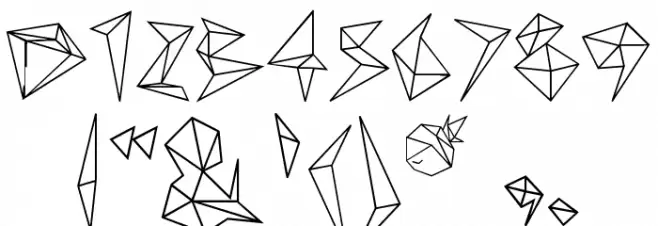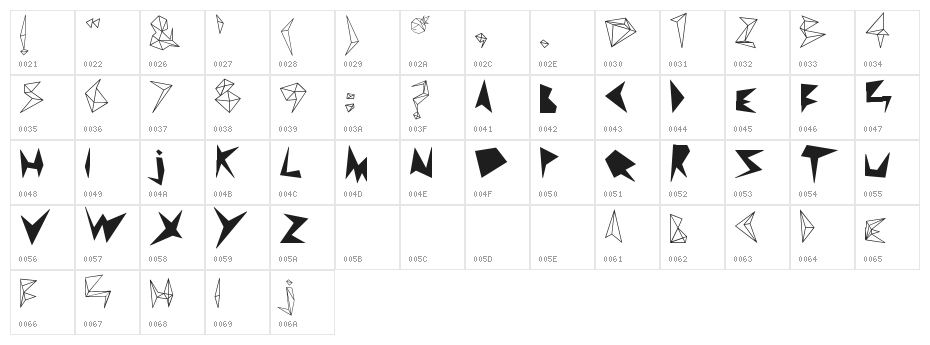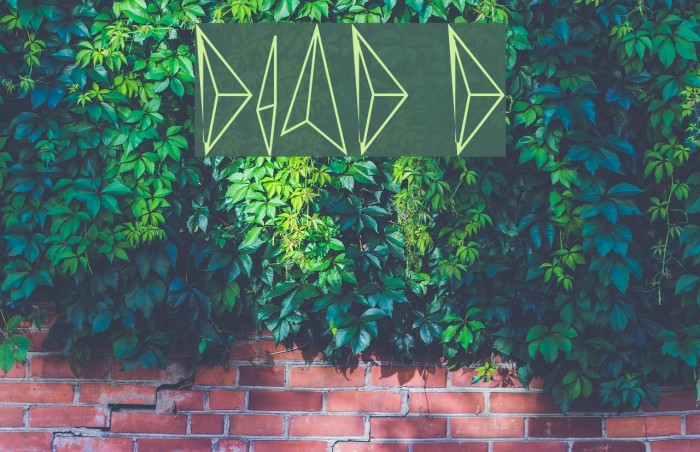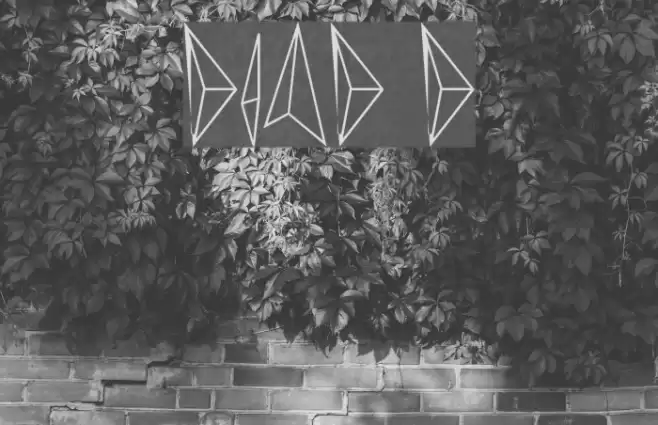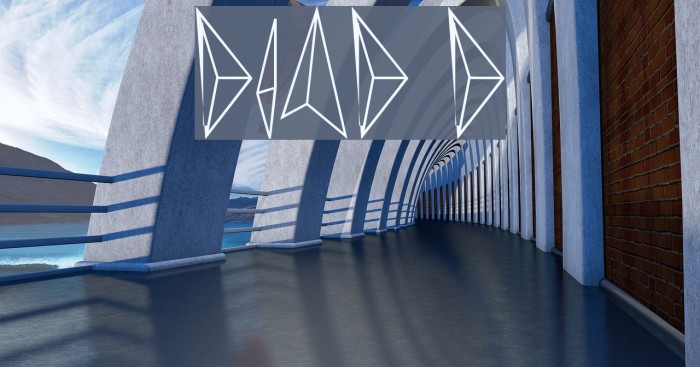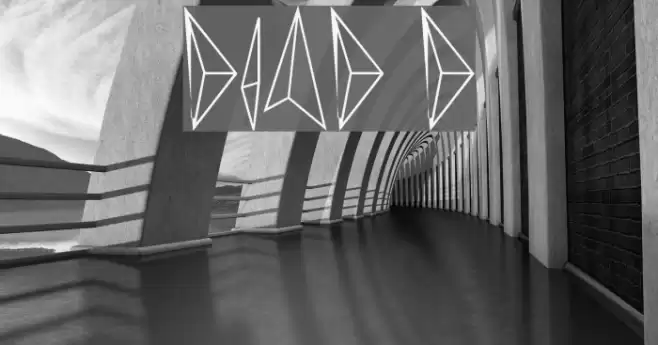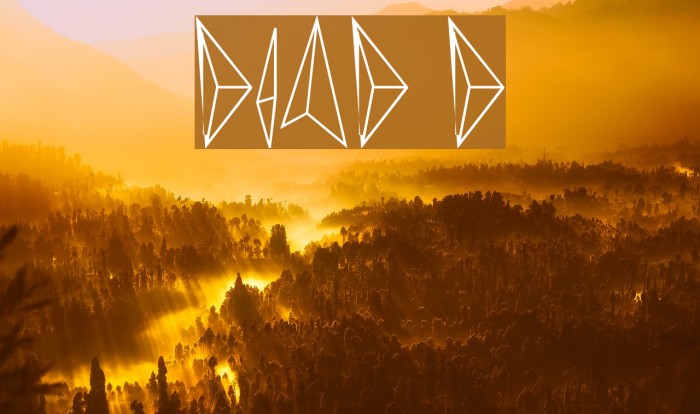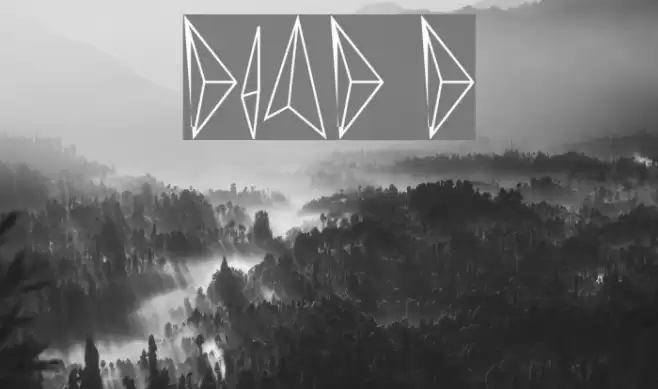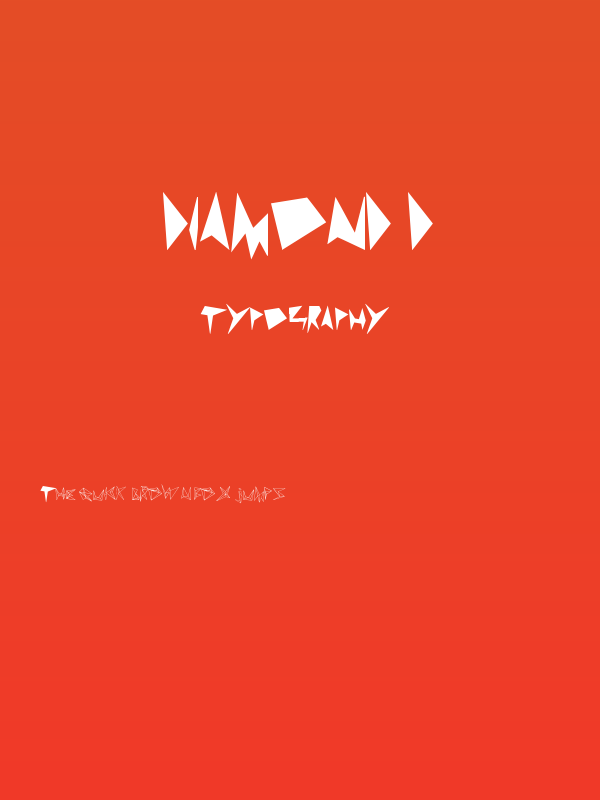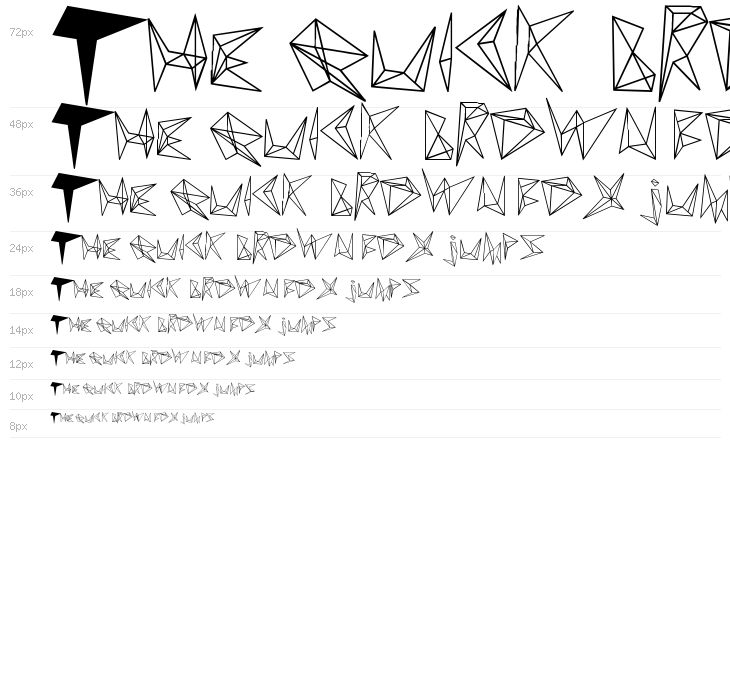
diamond d Font
diamond d Description
This font features a striking, geometric design that resembles cut gemstones or crystals. The uppercase letters are bold and angular, with sharp edges and a dynamic, faceted appearance. The lowercase letters maintain this geometric style, offering a cohesive look across different cases. Numbers and special characters follow the same angular, crystalline theme, making the font highly distinctive and artistic. The overall design is reminiscent of modern art, with a focus on sharp lines and unique shapes that create a sense of movement and energy.
| Proposed Projects | Ideal for modern art projects, edgy branding, album covers, and fashion-related designs. |